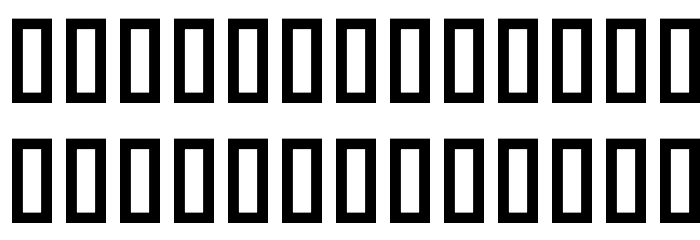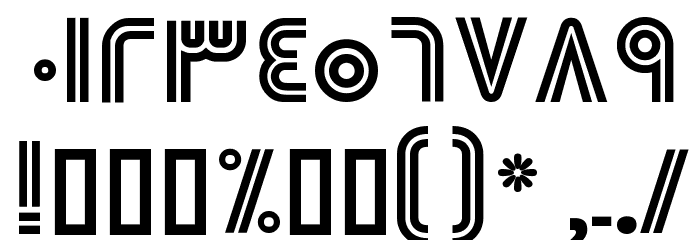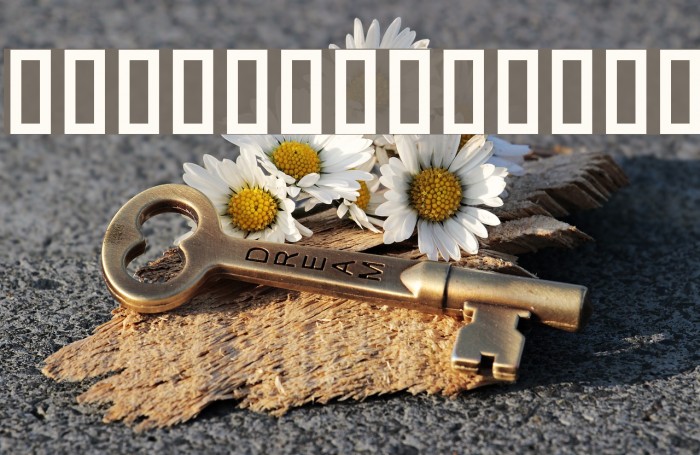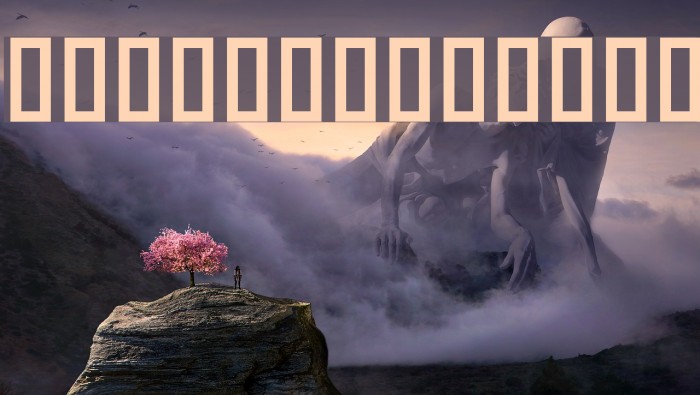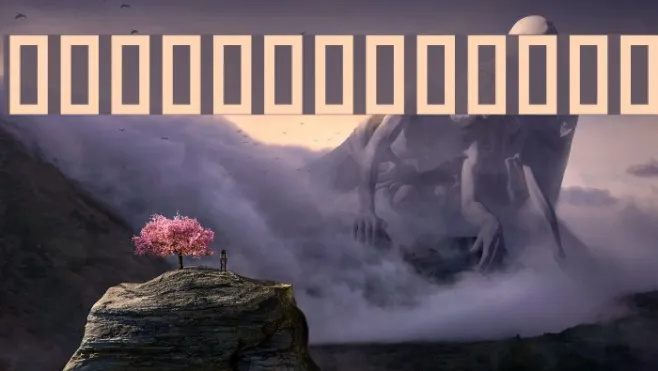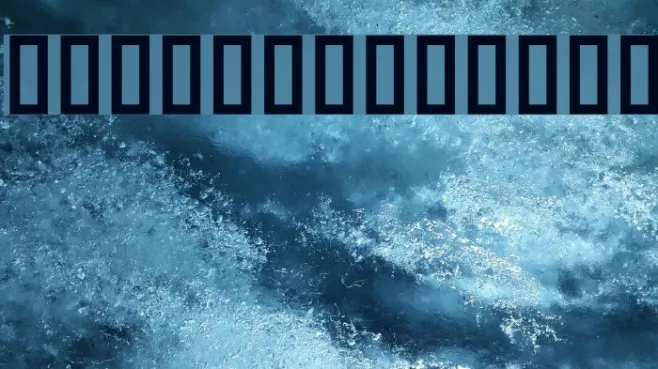
Canada Double Font
This font features a bold and geometric design with a double-line structure that gives it a futuristic and modern appearance. The characters are constructed with parallel lines, creating a hollow effect that adds depth and dimension. The uppercase letters are uniform in height and width, maintaining a consistent visual rhythm. The numerals and special characters follow the same design principles, ensuring a cohesive look across all elements. The font's unique style makes it stand out, ideal for projects that require a distinctive and eye-catching typeface.
A bold, geometric font with a double-line structure and futuristic appeal.
- Proposed Projects: Ideal for technology branding, sci-fi movie posters, modern art installations, and innovative product packaging.
- Overall Style: Futuristic